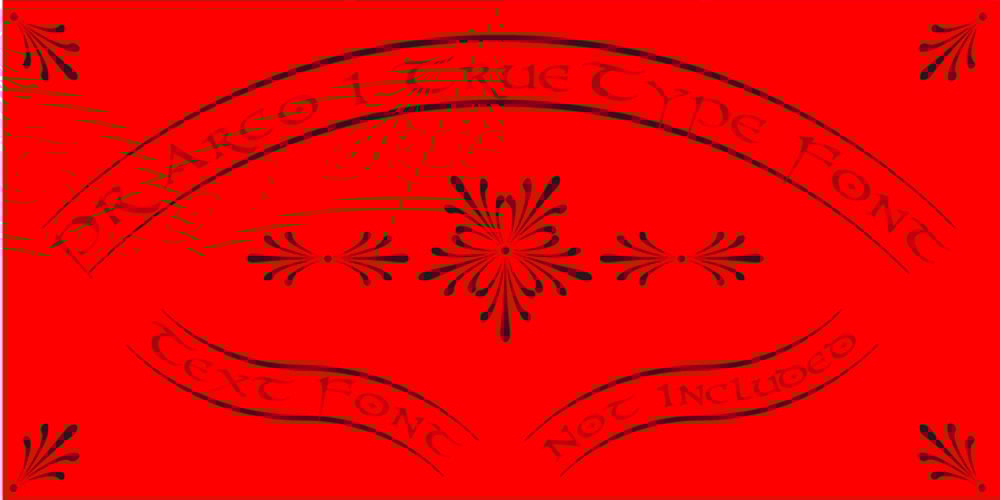
PR Arco
PR Arco font
PR Arco Font Family was designed by Peter Rempel and published by PR Fonts. PR Arco contains 1 styles and family package options. Arcs for framing curved lines of text, in a style common on Victorian posters and almanac covers, and still seen on modern food packaging.